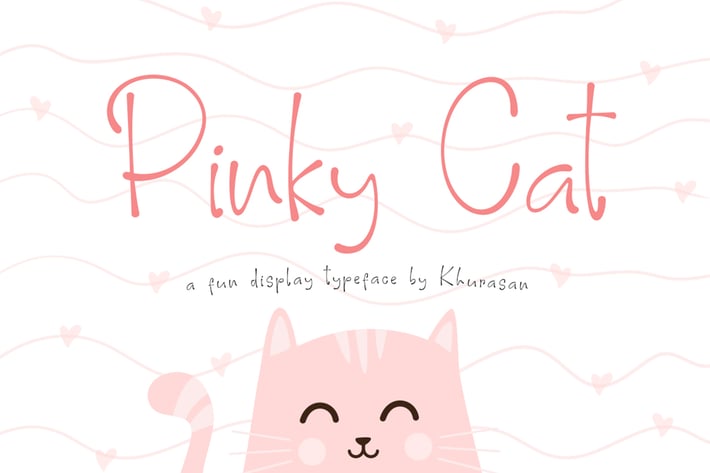
Pinky Cat Font
The Pinky Cat is a fun display font, fresh & modern style. Pinky Cat Font suitable for logo, branding, greeting card, poster and any design that you create.